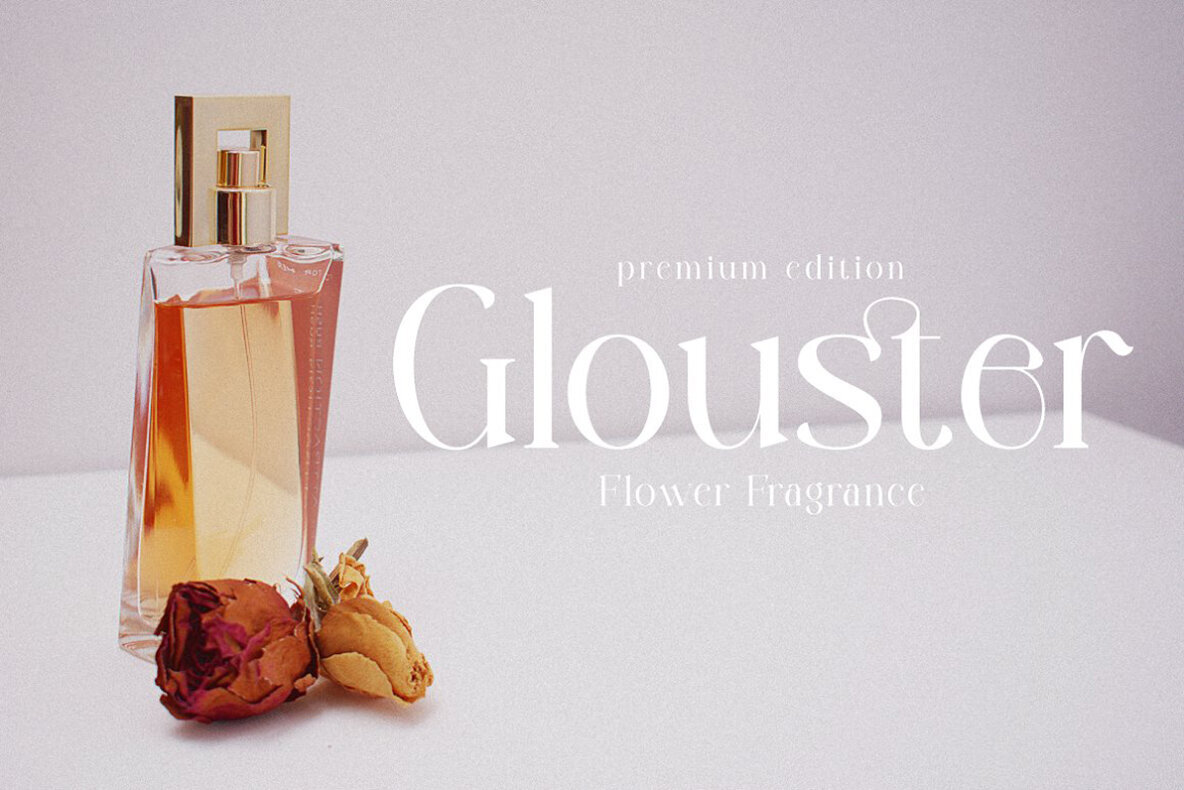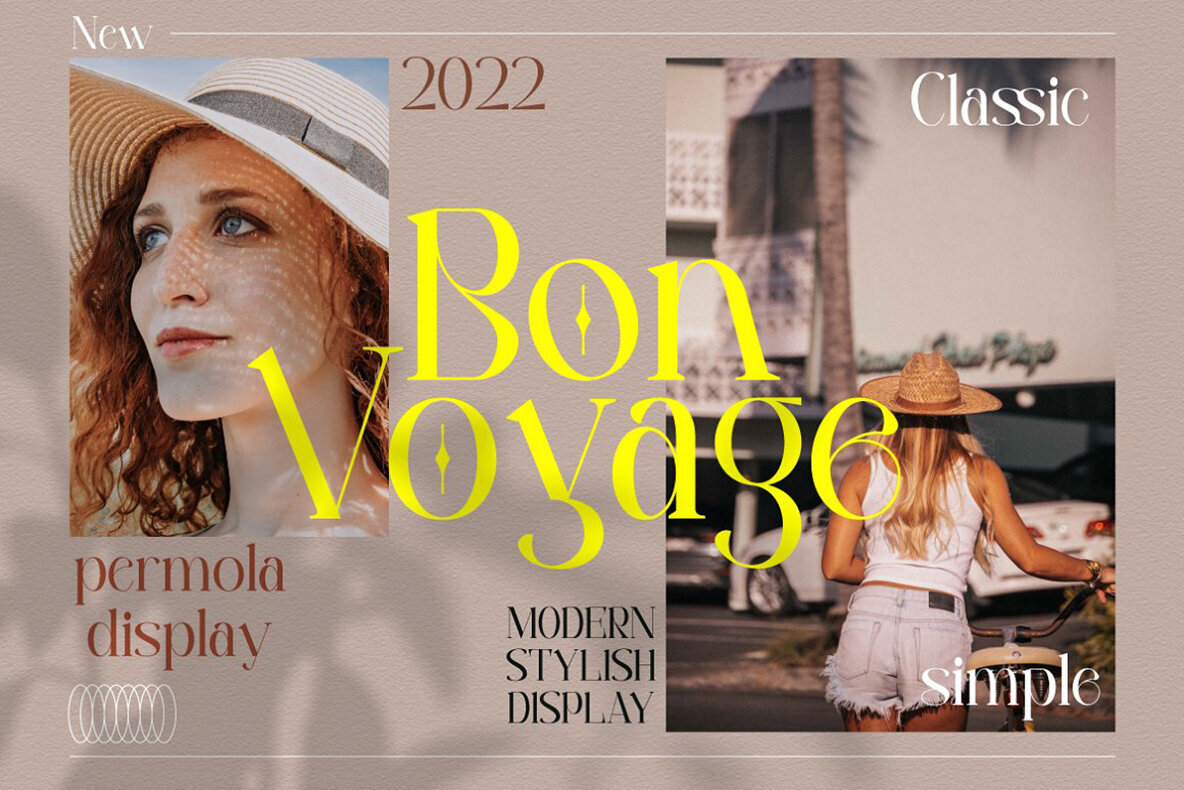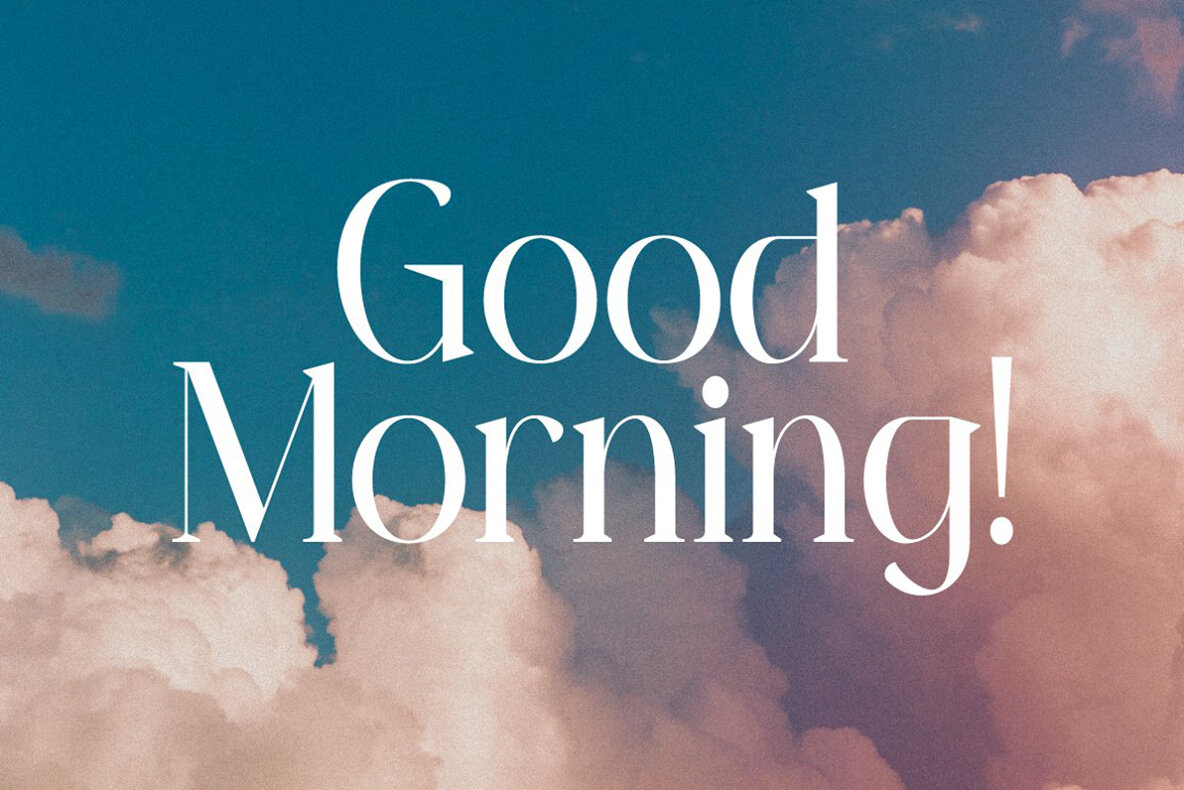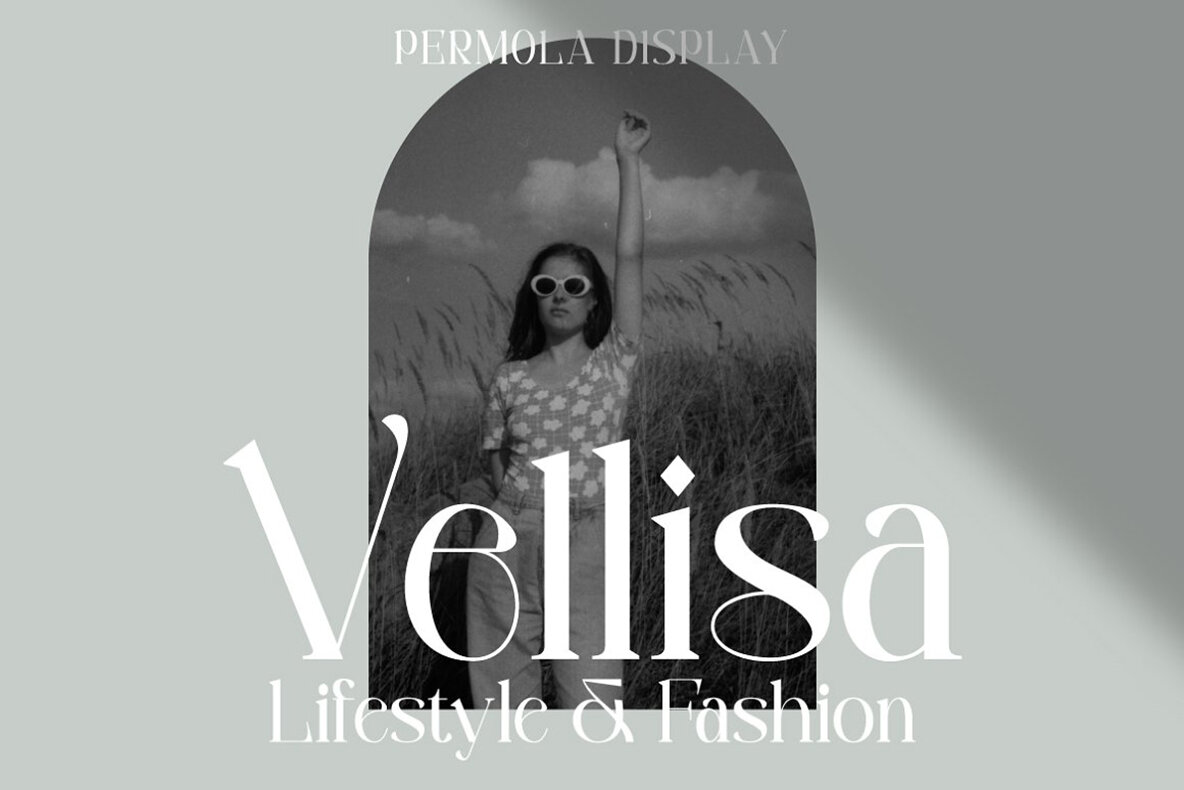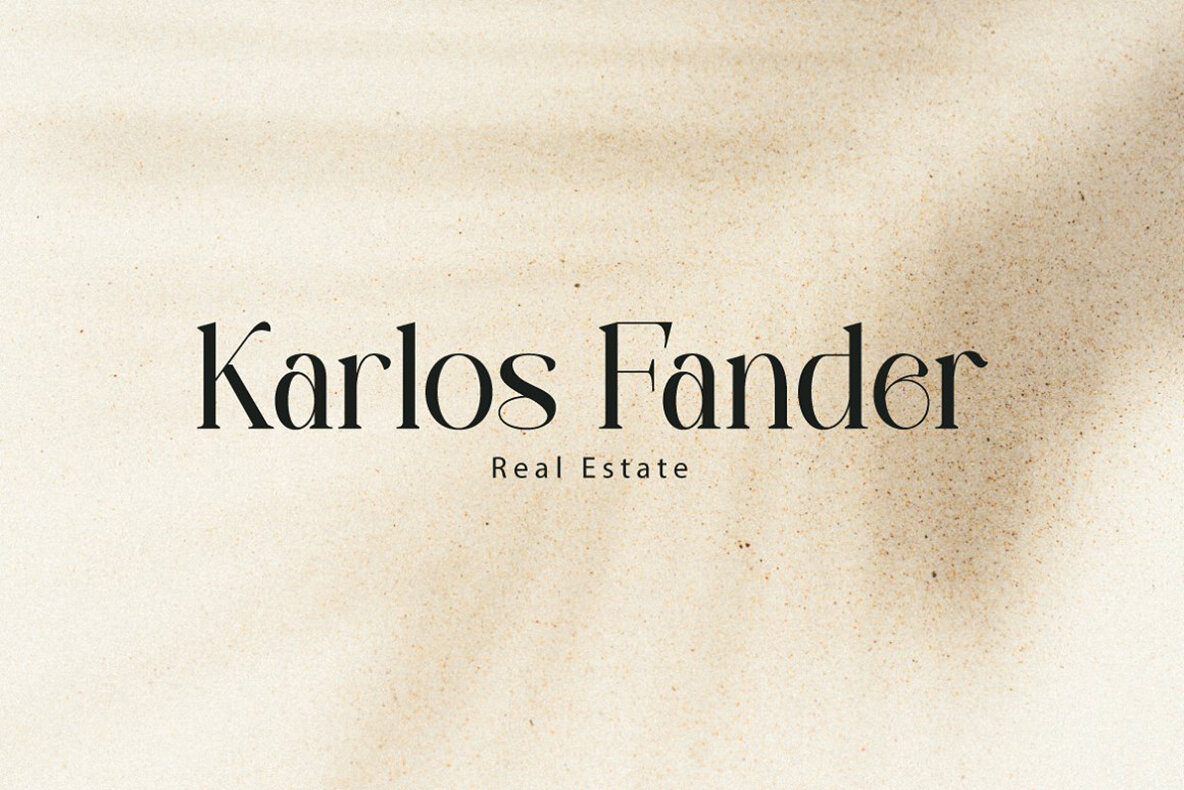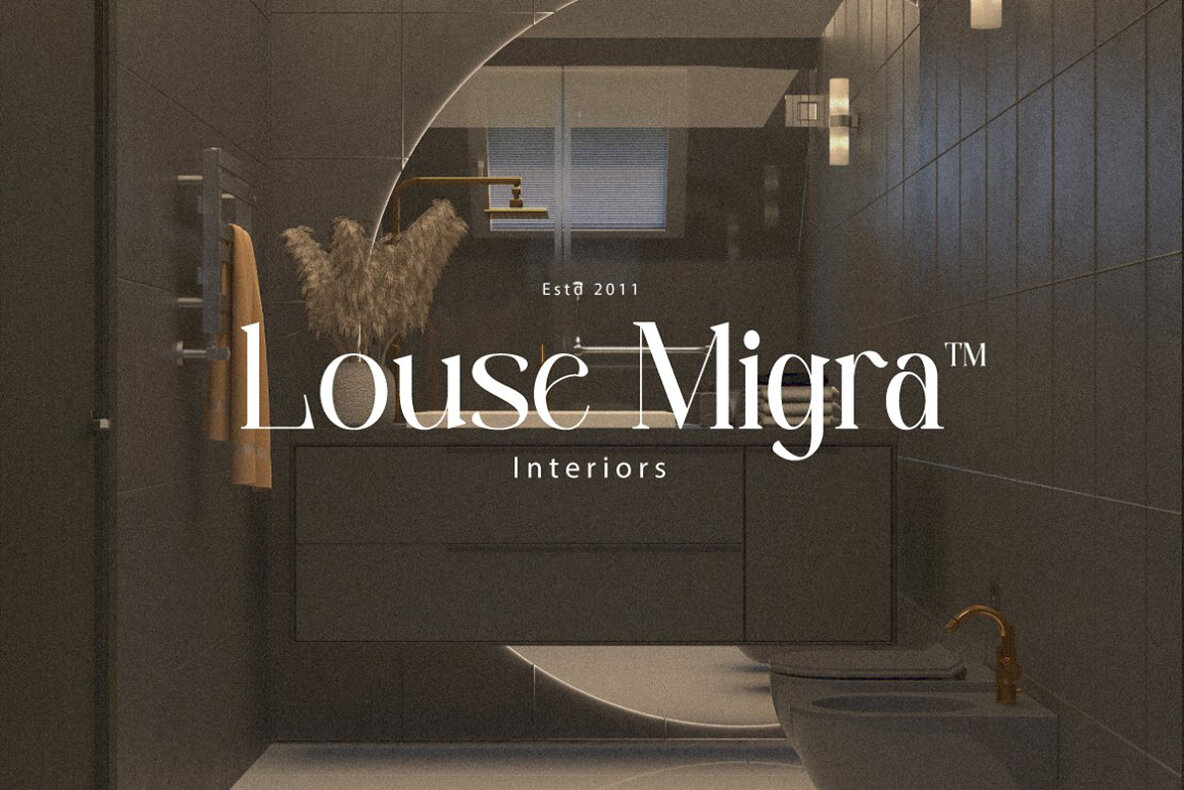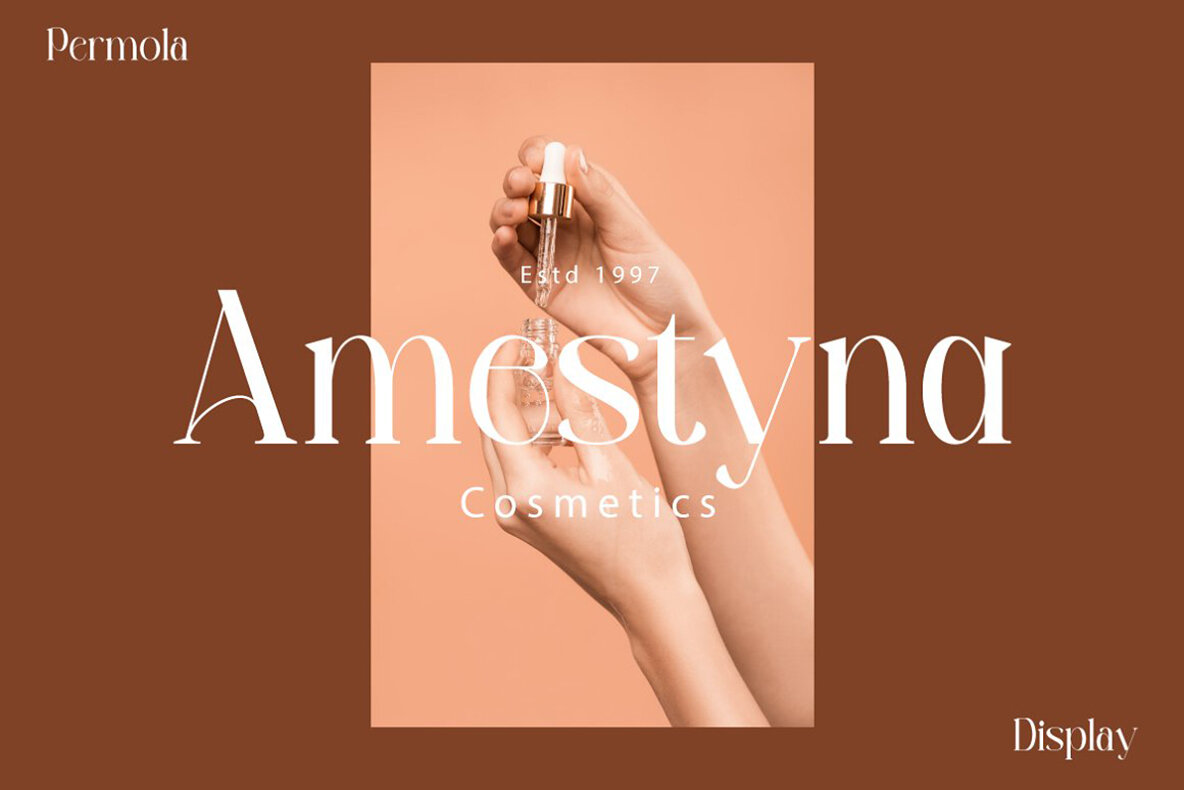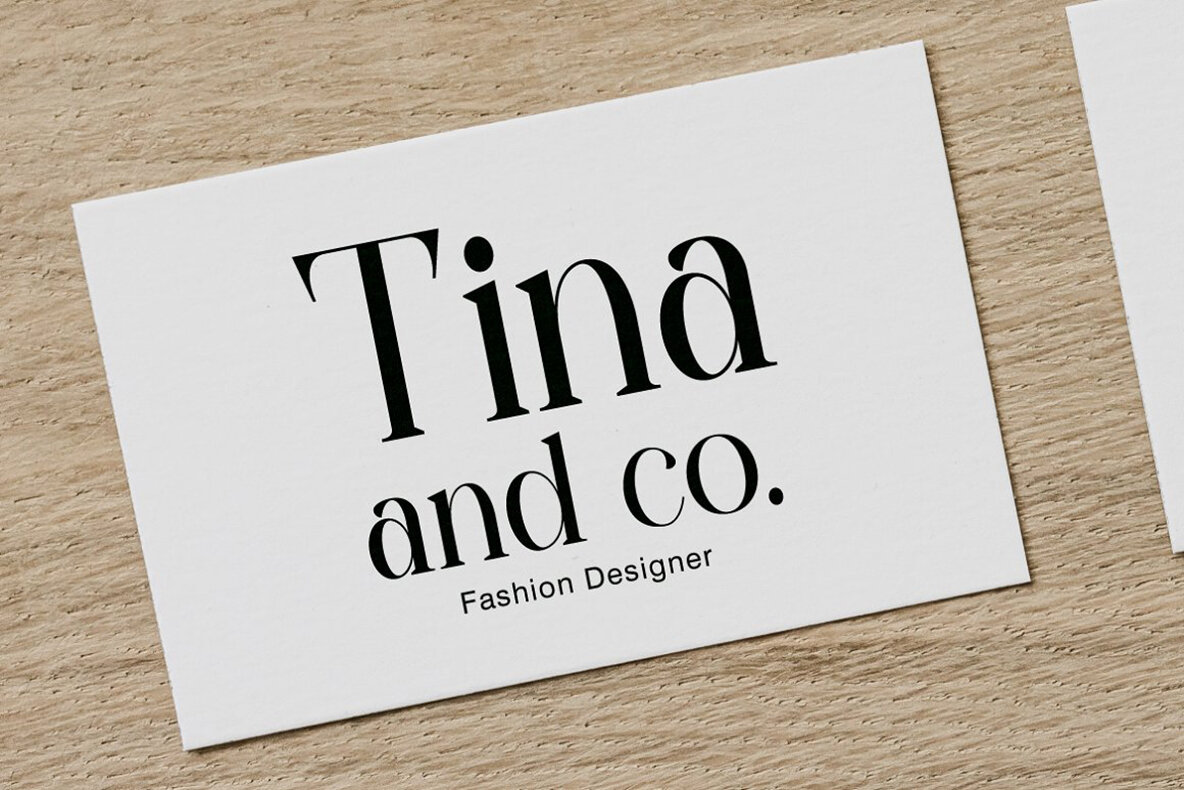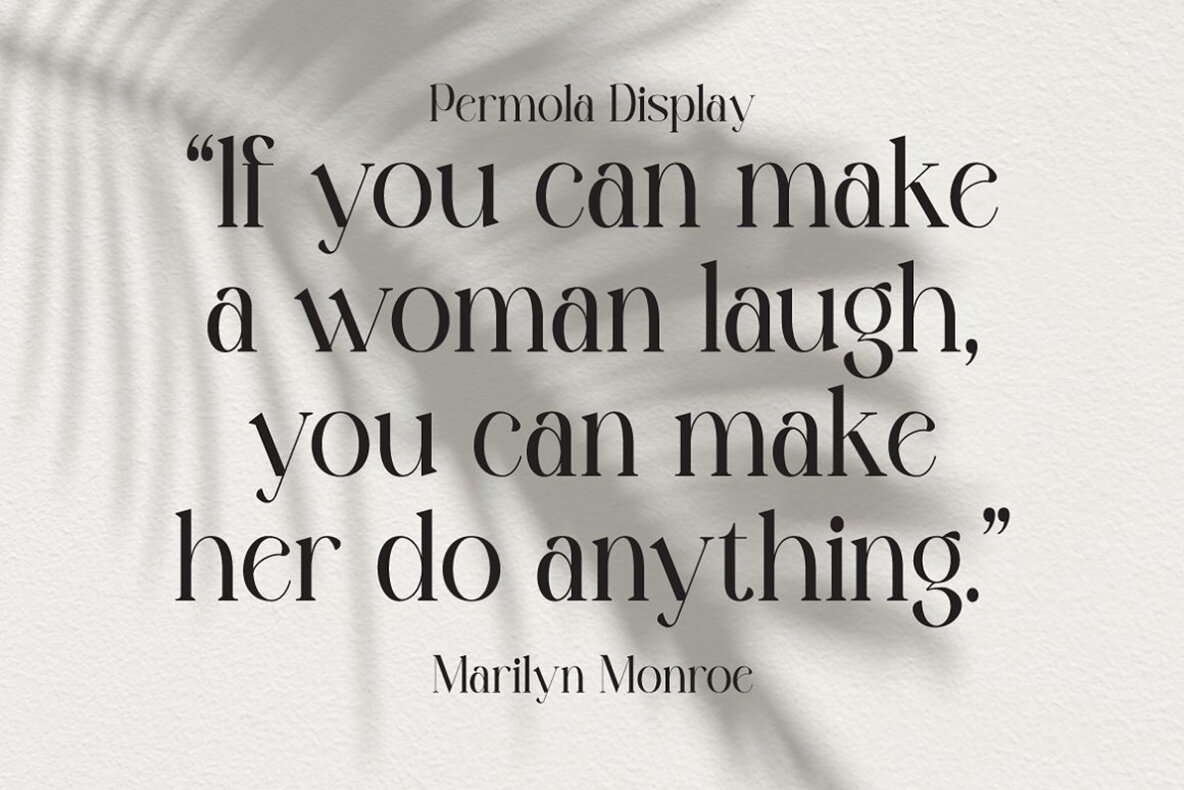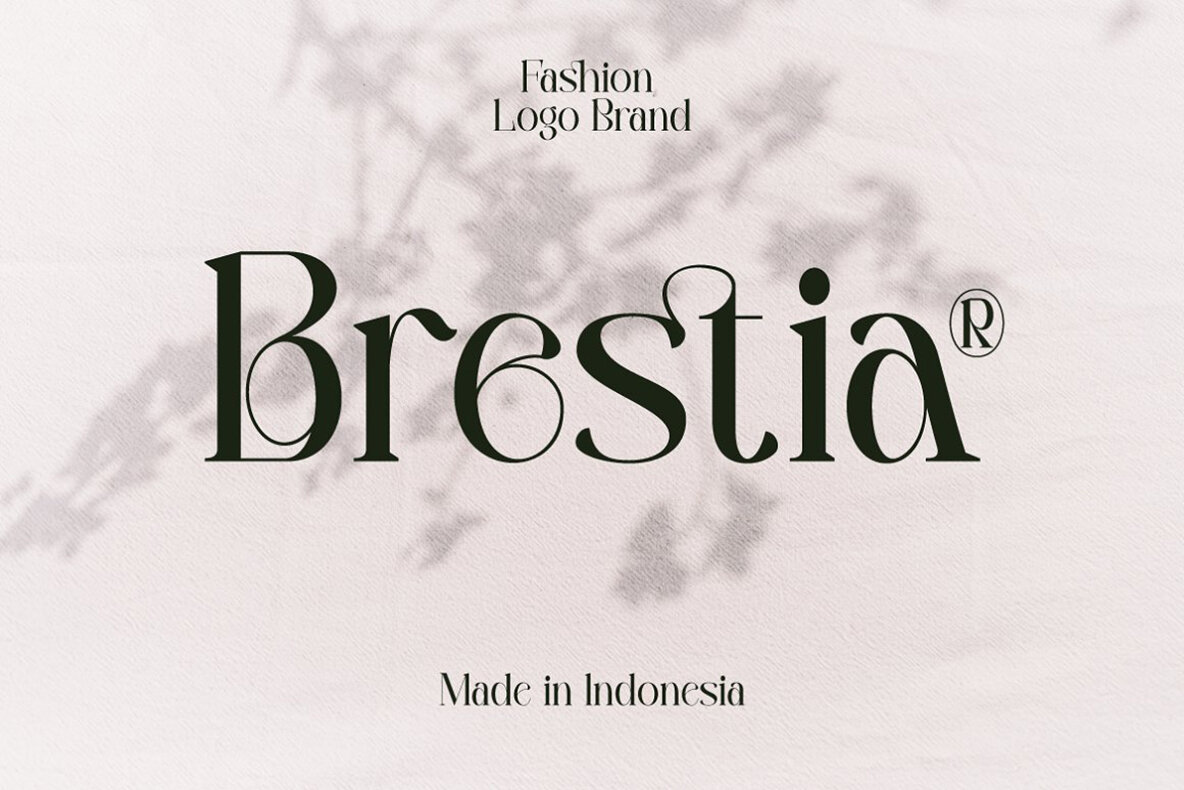
Permola Display Font
Permola Display
Permola Display is a stylish serif font with a perfect blend of modern and retro aesthetics. It features an array of alternatives and ligatures, making it ideal for creating stunning logos, quotes, social media posts, blog articles, branding projects, magazine imagery, wedding invitations, and more. Enjoy using the versatile Permola font in your projects, and make it a valuable addition to your font collection. For any inquiries, feel free to contact the creator. Happy designing!Permola Display: Modern and Retro Serif Font